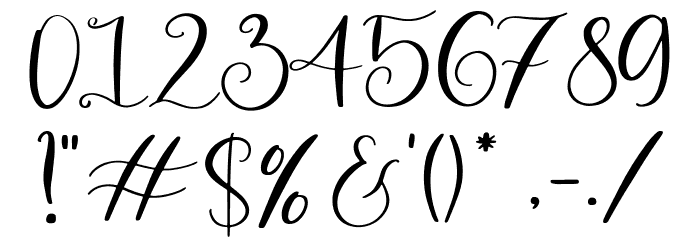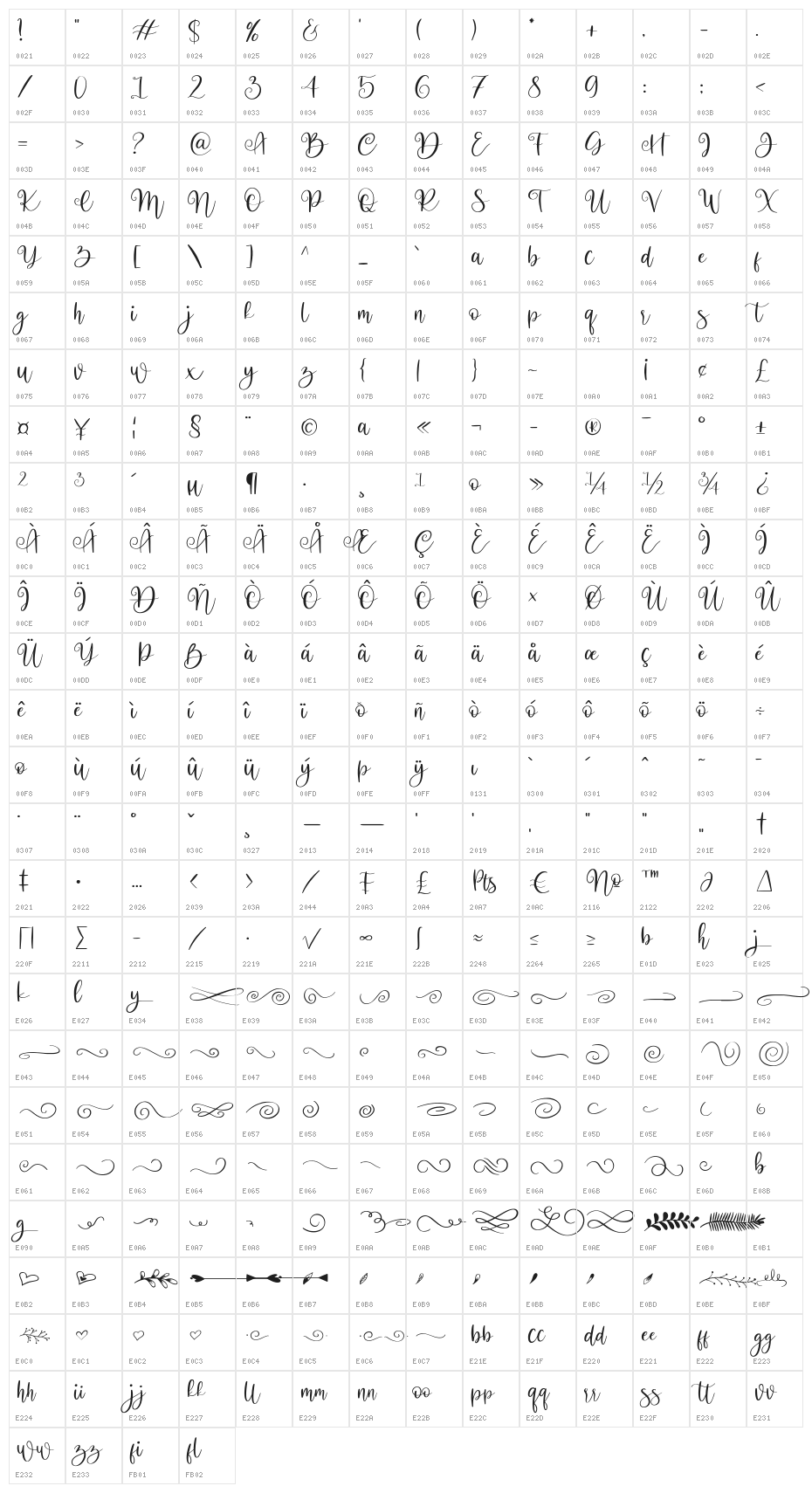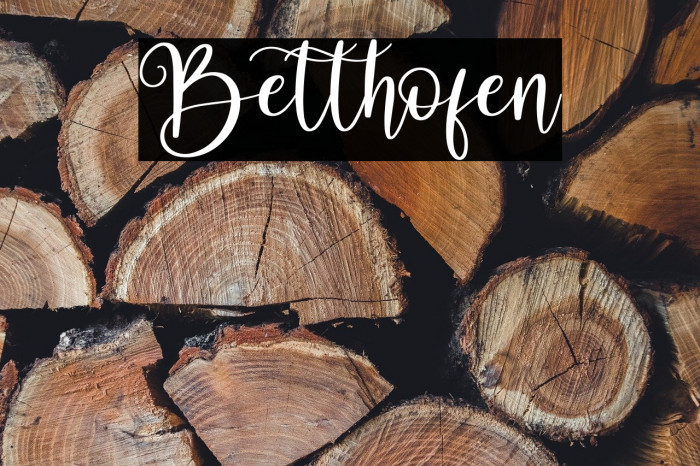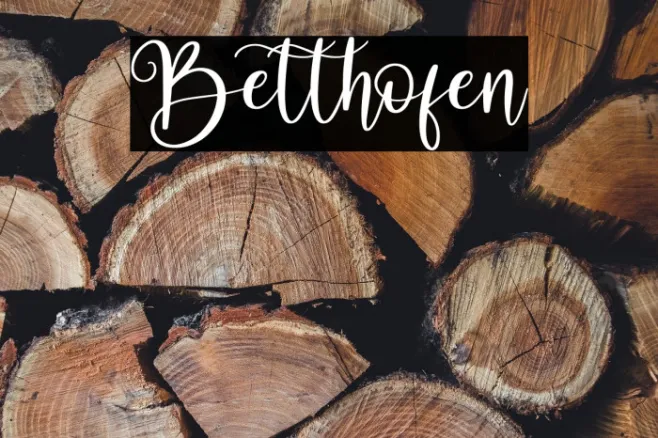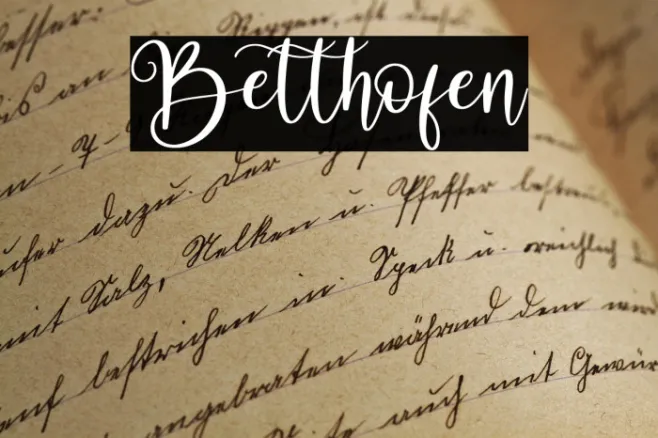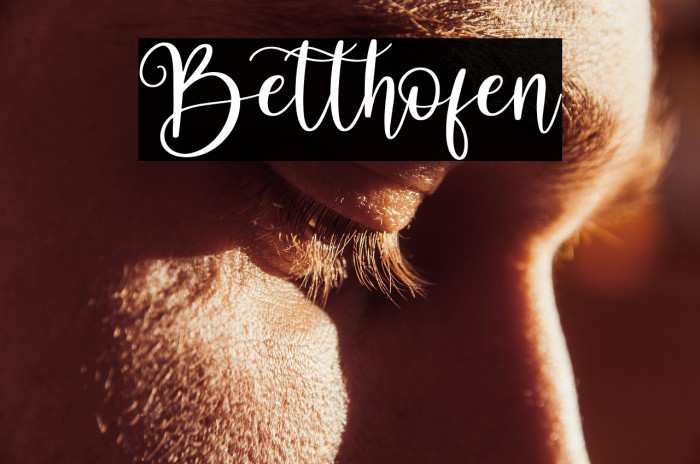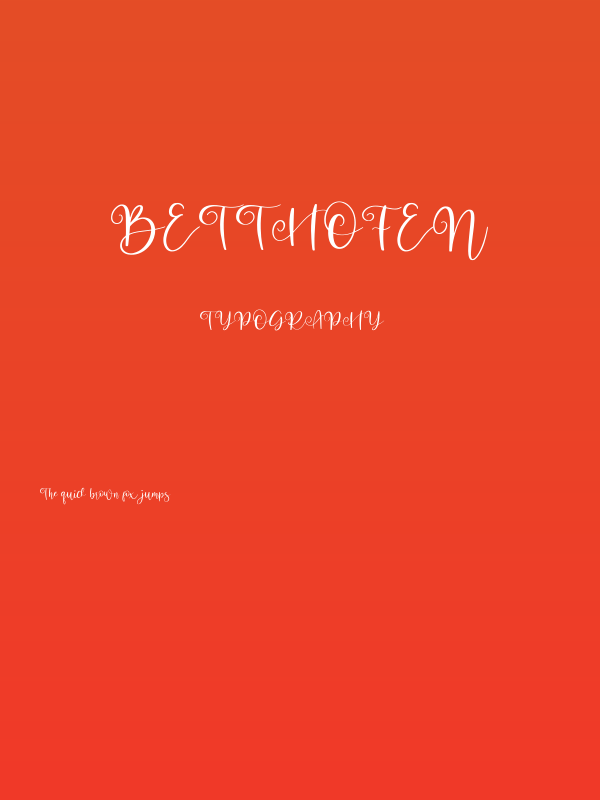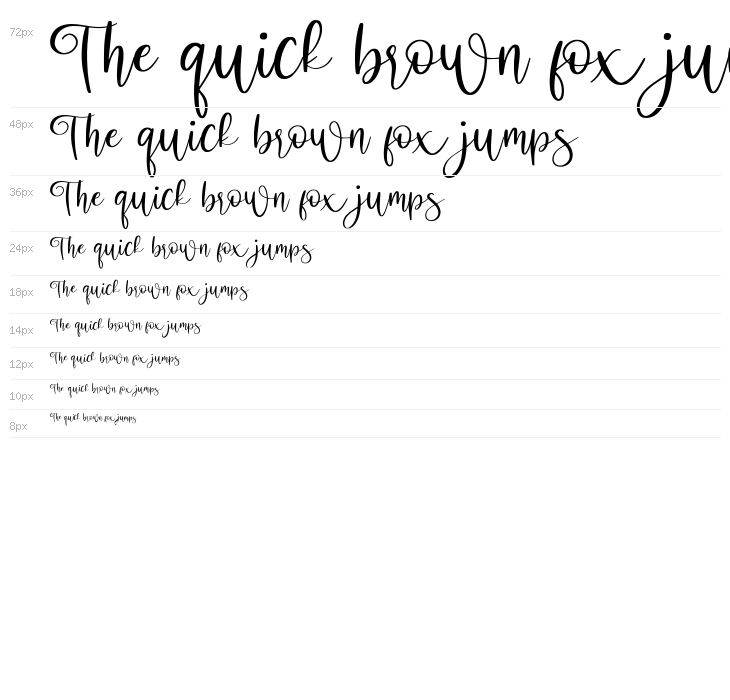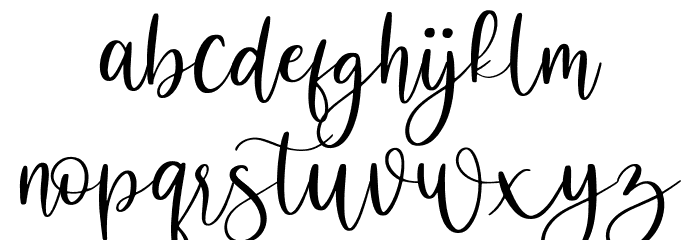
Betthofen Font
Betthofen Description
This elegant script font features flowing, interconnected letters that evoke a sense of sophistication and grace. The uppercase letters are adorned with intricate swashes and loops, creating a decorative and artistic appearance. The lowercase letters maintain a fluid and cursive style, enhancing readability while preserving the font's ornate character. Numbers and special characters are designed with similar embellishments, ensuring a cohesive look across all elements. This font is ideal for projects that require a touch of elegance and creativity, such as wedding invitations, branding, and artistic designs.
| Use Case | Logos, Invitations, Artistic designs |
| Proposed Projects | Wedding invitations, branding, artistic designs, greeting cards, and elegant packaging. |